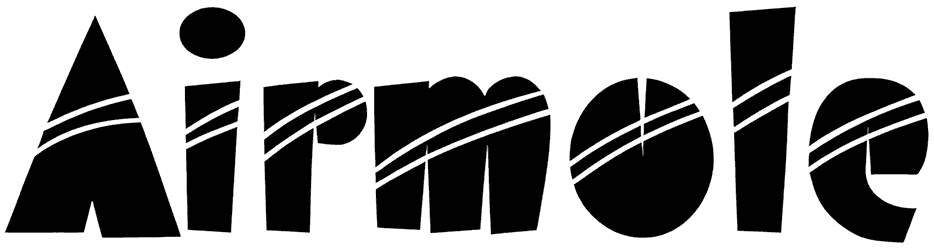
Airmole Font
Airmole is a fancy font that reminds you of modern graphical logos. You can use this font in remarkable cases in which your goal is to grab attention at first sight.
There are four distinct patterns for this font, and each of them sends a unique vibe. The stripped one seems more artistic, while the shaded one arouses your fantasy. The antique Airmole font feels a bit gothic, and it might be appropriate for more notable occasions.
Airmole was inspired by a hand lettering manual from the early twentieth century. Instead of holes, narrow slits are used. Airmole is available in normal, striped, shaded, and antique patterns. Most Latin-based European, Greek, and some Cyrillic-based writing systems are supported, including the following languages. Afaan Oromo, Afar, Afrikaans, Albanian, Alsatian, Aromanian, Aymara, Bashkir (Latin), Basque, Belarusian (Latin), Bemba, Bikol, Bosnian, Breton, Bulgarian, Cape Verdean, Creole, Catalan, Cebuano, Chamorro, Chavacano, Chichewa, Crimean Tatar (Latin), Croatian, Czech, Danish, Dawan, Dholuo, Dutch, English, Estonian, Faroese, Fijian, Filipino, Finnish, French, Frisian, Friulian, Gagauz (Latin), Galician, Ganda, Genoese, German, Greek, Greenlandic, Guadeloupean Creole, Haitian Creole, Hawaiian, Hiligaynon, Hungarian, Icelandic, Ilocano, Indonesian, Irish, Italian, Jamaican, Kaqchikel, Karakalpak (Latin), Kashubian, Kikongo, Kinyarwanda, Kirundi, Komi-Permyak, Kurdish (Latin), Latvian, Lithuanian, Lombard, Low Saxon, Luxembourgish, Maasai, Macedonian, Makhuwa, Malay, Maltese, Māori, Moldovan, Montenegrin, Ndebele, Neapolitan, Norwegian, Novial, Occitan, Ossetian (Latin), Papiamento, Piedmontese, Polish, Portuguese, Quechua, Rarotongan, Romanian, Romansh, Russian, Sami, Sango, Saramaccan, Sardinian, Scottish Gaelic, Serbian, Serbian (Latin), Shona, Sicilian, Silesian, Slovak, Slovenian, Somali, Sorbian, Sotho, Spanish, Swahili, Swazi, Swedish, Tagalog, Tahitian, Tetum, Tongan, Tshiluba, Tsonga, Tswana, Tumbuka, Turkish, Turkmen (Latin), Tuvaluan, Uzbek (Latin), Ukrainian, Venetian, Vepsian, Võro, Walloon, Waray-Waray, Wayuu, Welsh, Wolof, Xhosa, Yapese, Zapotec Zulu and Zuni.